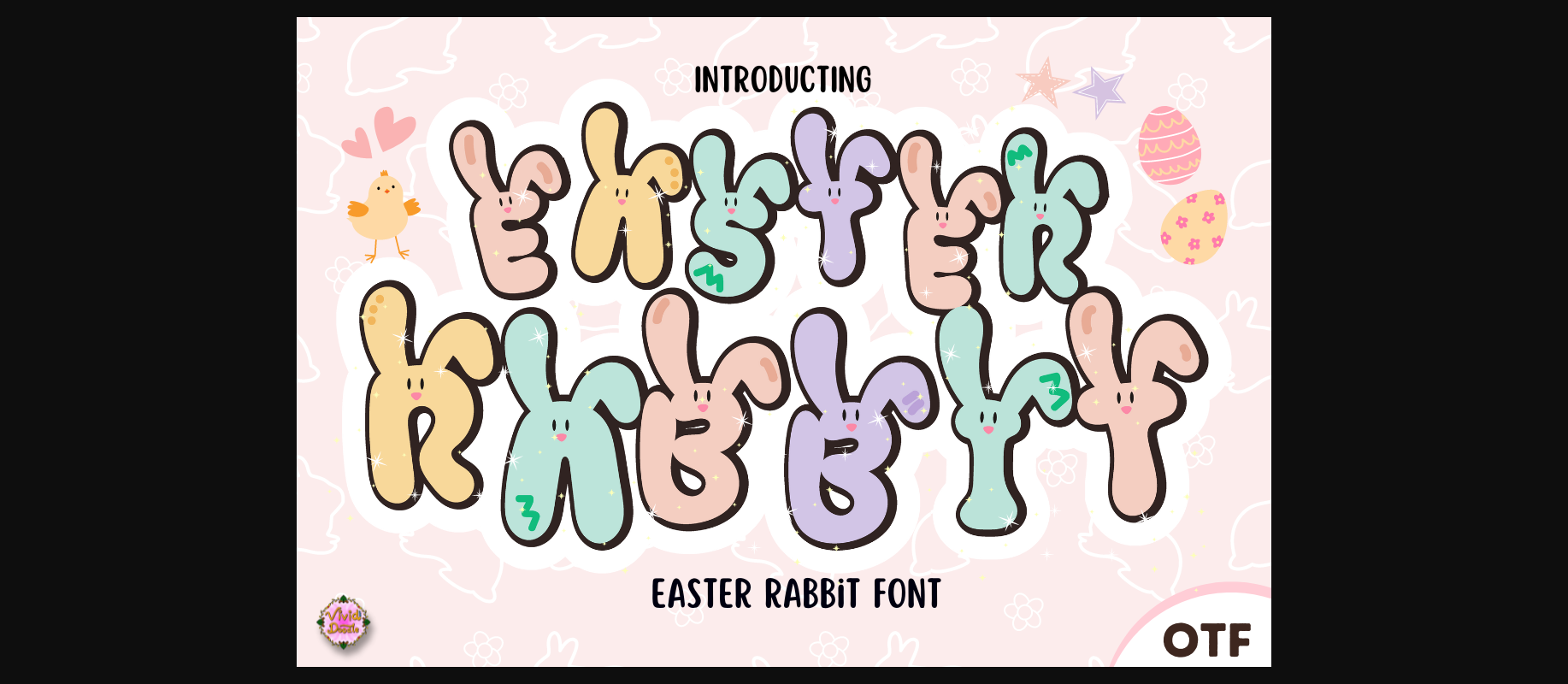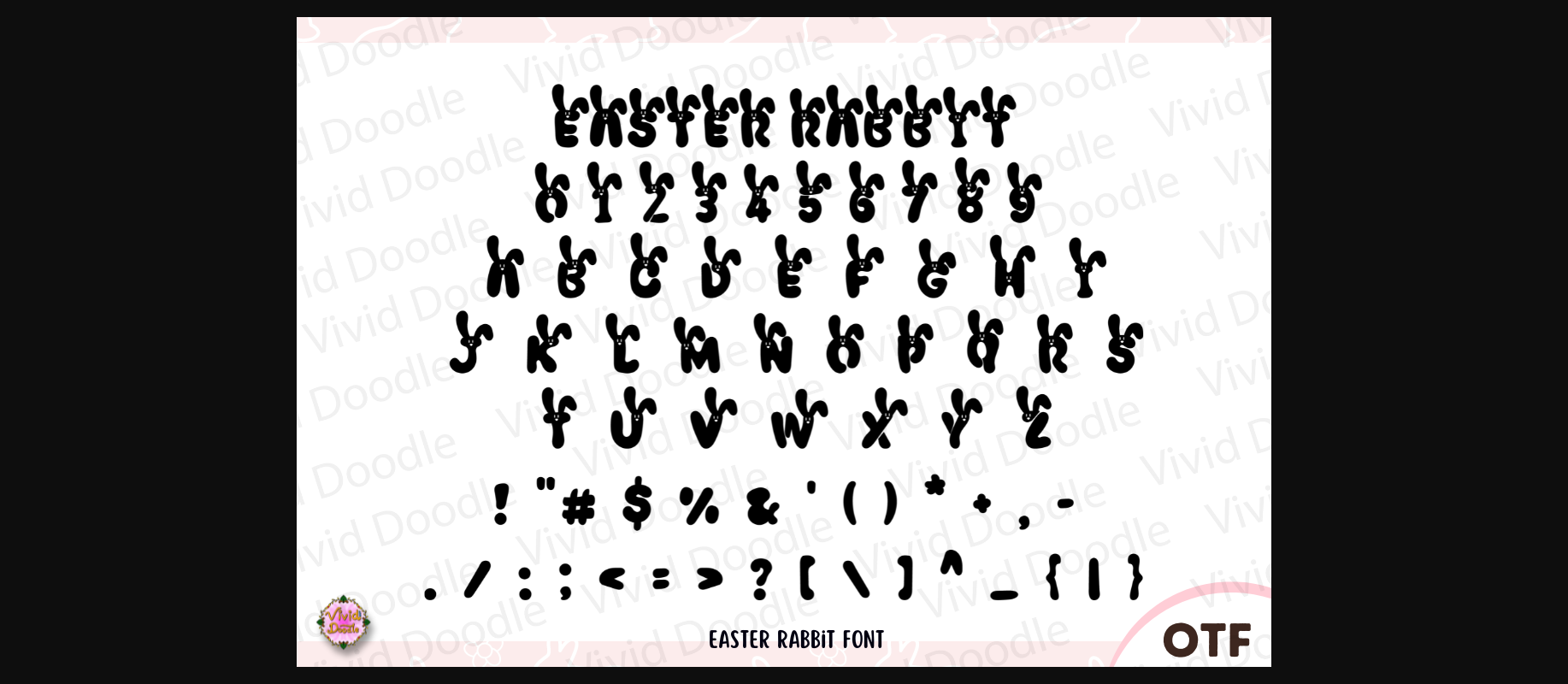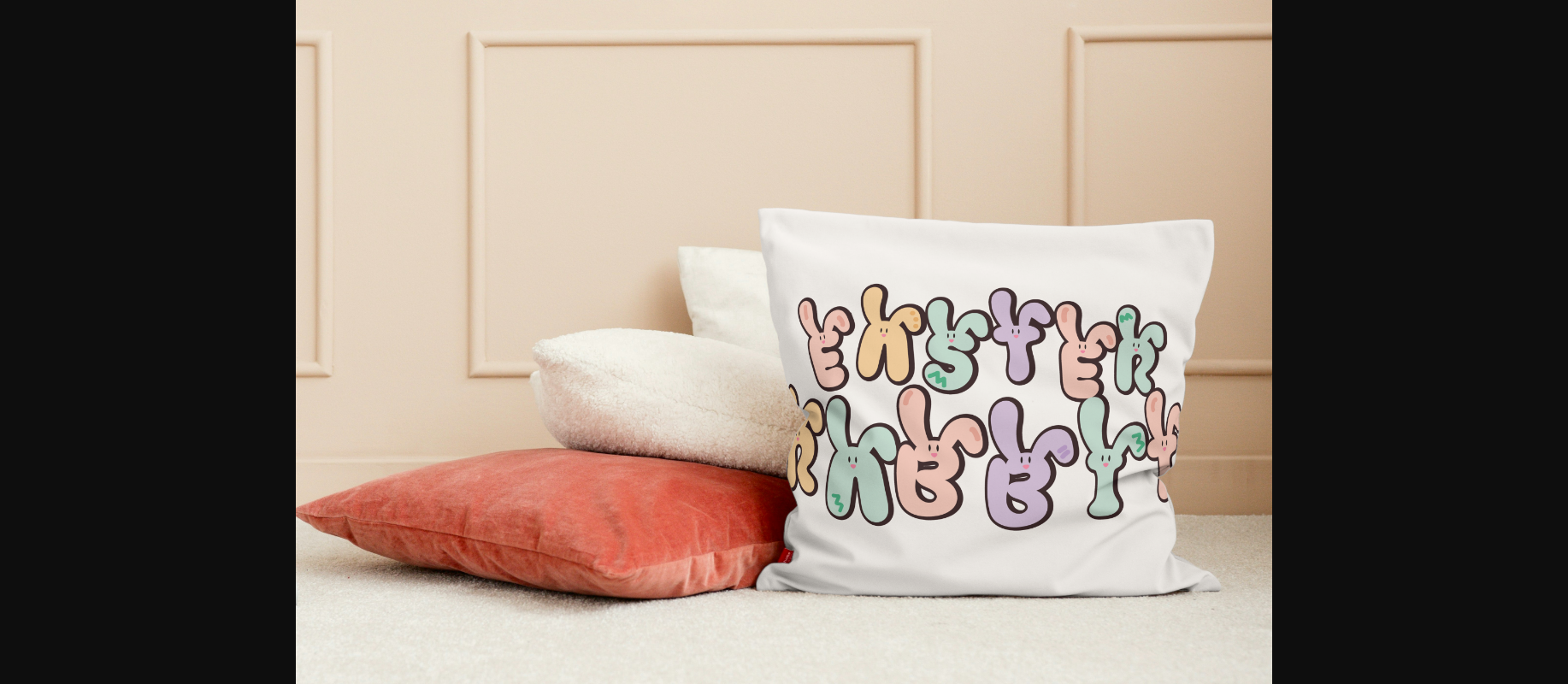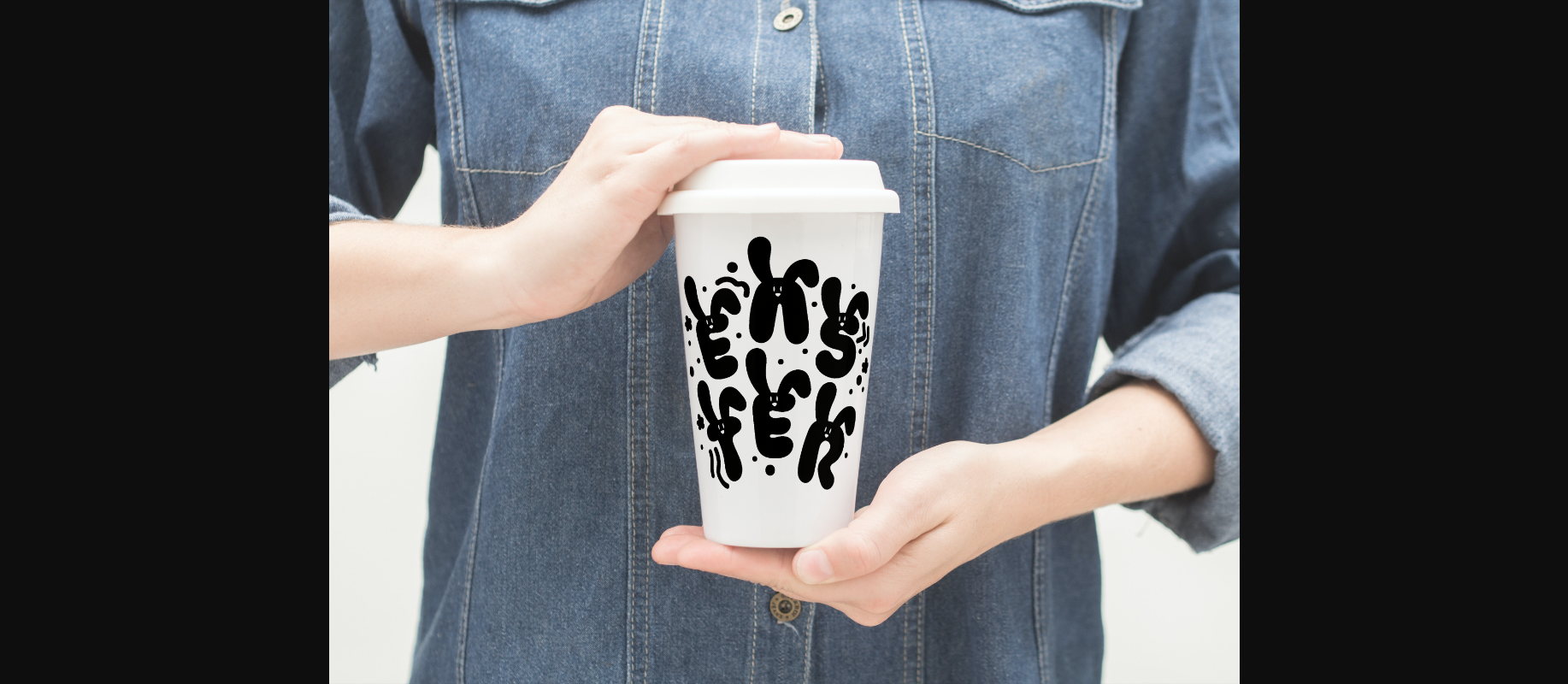
About Easter Rabbit Font
Embrace the spirit of cheer and festivities with the Easter Rabbit font. Perfectly tailored to enhance your Easter day projects, it captures the essence of a jubilant rabbit design. This whimsical font is also adept for diverse designs that call for a celebration, infusing an air of liveliness and charm. With the Easter Rabbit font, your design will hop right into the hearts of your audience.